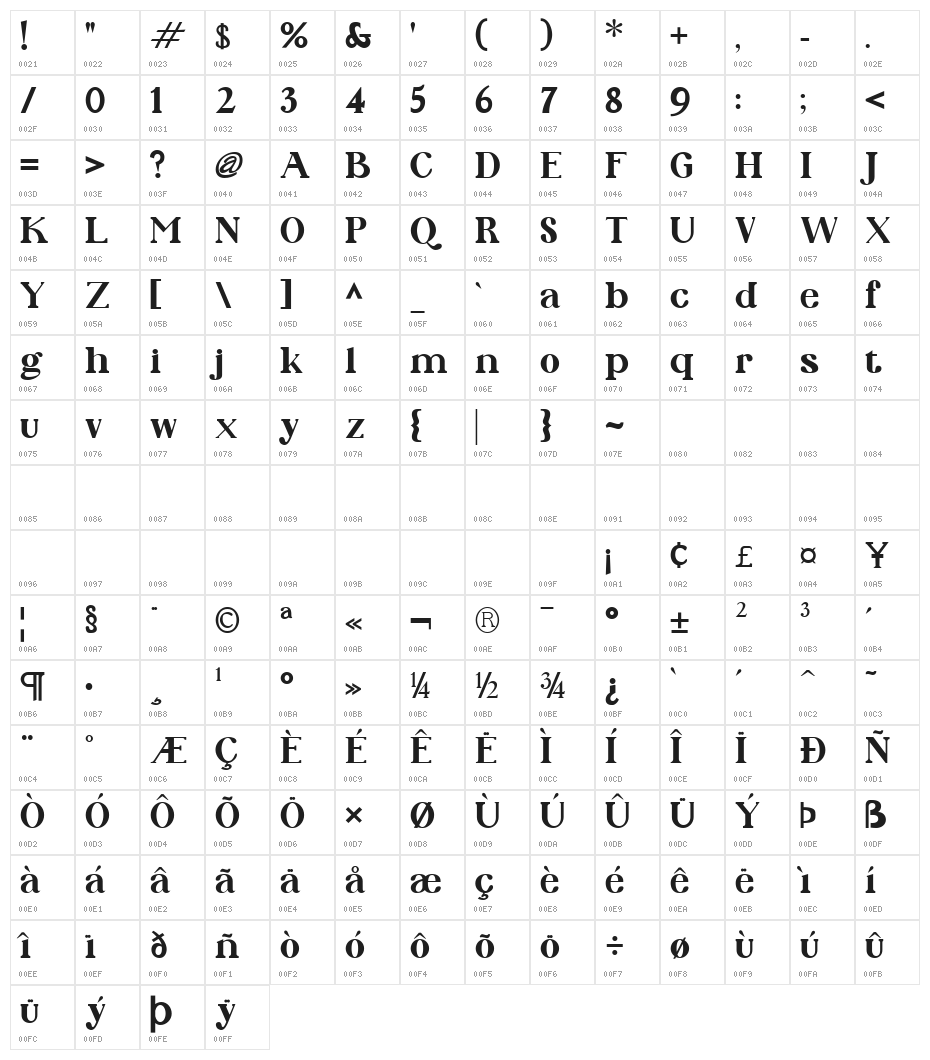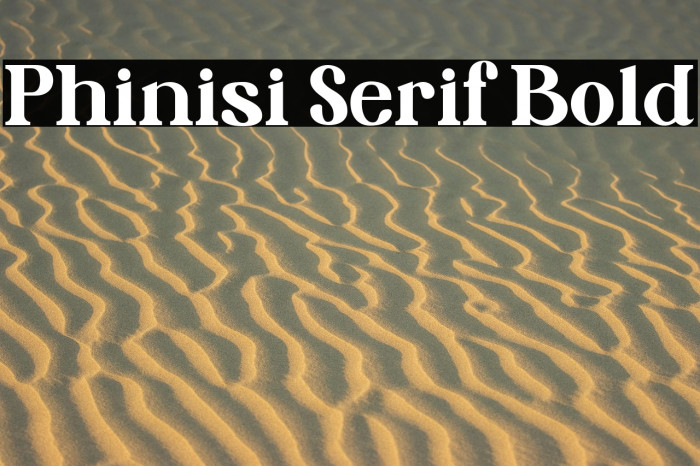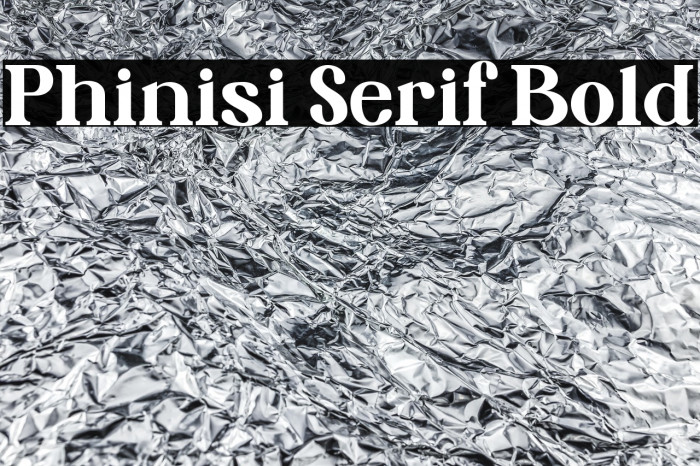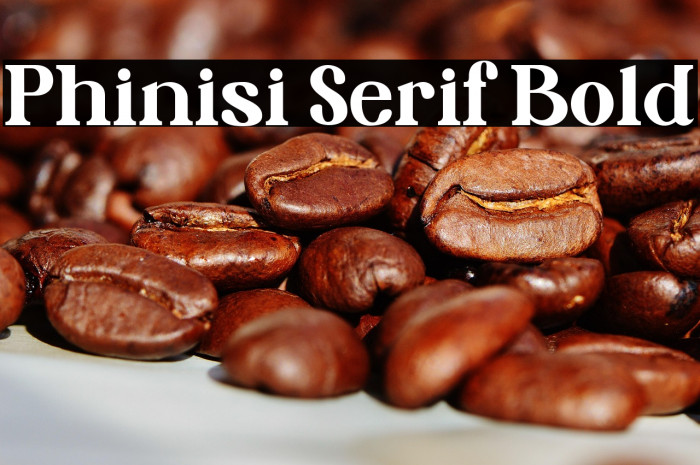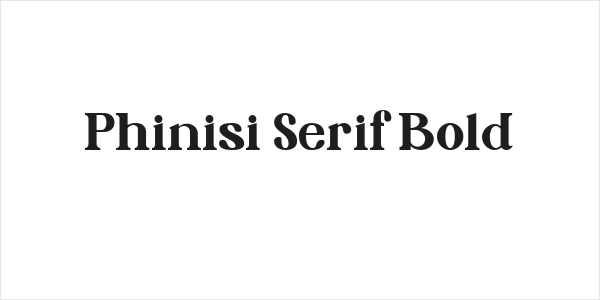
Phinisi Serif Bold Font
Phinisi Serif Bold Description
This font features a bold and commanding serif style, characterized by thick, prominent strokes and sharp, angular serifs. The uppercase letters are robust and authoritative, while the lowercase letters maintain a consistent weight, offering a harmonious balance. The numerals are equally bold, ensuring clarity and impact. Special characters are designed with the same boldness, making them stand out effectively. The overall design exudes a classic yet modern appeal, suitable for making strong visual statements.